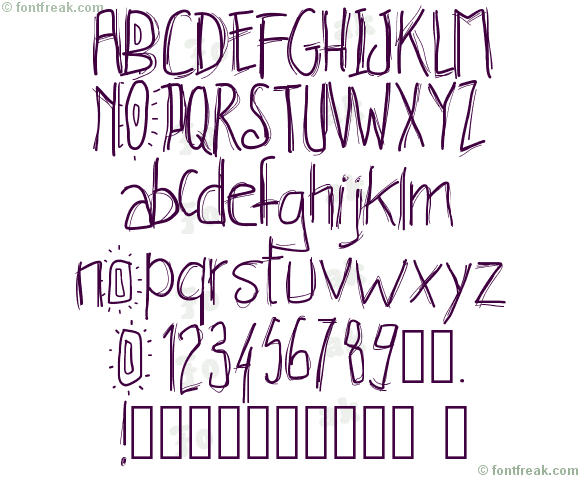
PWHachures
About PWHachures
PWHachures is a distinctive display font designed by Peax Webdesign, categorized as a decorative typeface that brings a unique flair to any project. This font stands out with its playful, hand-drawn appearance, characterized by uneven stroke weights and whimsical lines that evoke a sense of creativity and spontaneity. The irregularities in spacing and the organic flow of the characters give it an artisanal quality, making it perfect for designs that require a personal touch.
The PWHachures font free download is an excellent choice for various creative applications. It shines in contexts such as wedding invitations, where its charming aesthetic can add a romantic feel. Moreover, it is ideal for artistic posters, particularly for film festivals or art exhibitions, where a unique typographic style can capture attention and convey a sense of the creative spirit. Restaurant menus benefit from its engaging appearance, inviting patrons to explore the culinary offerings with a warm and friendly vibe. Additionally, content creators can leverage PWHachures for social media graphics, as its eye-catching style helps content stand out in a crowded digital landscape.
Targeting graphic designers, small business owners, and content creators, PWHachures caters to those seeking to infuse their work with personality and warmth. Its distinct visual appeal allows for versatile usage, making it a valuable addition to any designer’s toolkit.
What sets PWHachures apart is its ability to convey a sense of whimsy and creativity while remaining legible and engaging. Whether used in print or digital mediums, this font captures the essence of artistic expression, making it a standout choice for anyone looking to make their designs memorable.